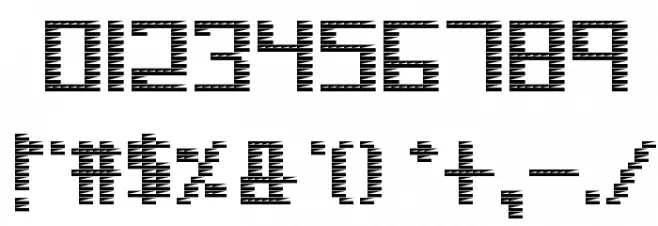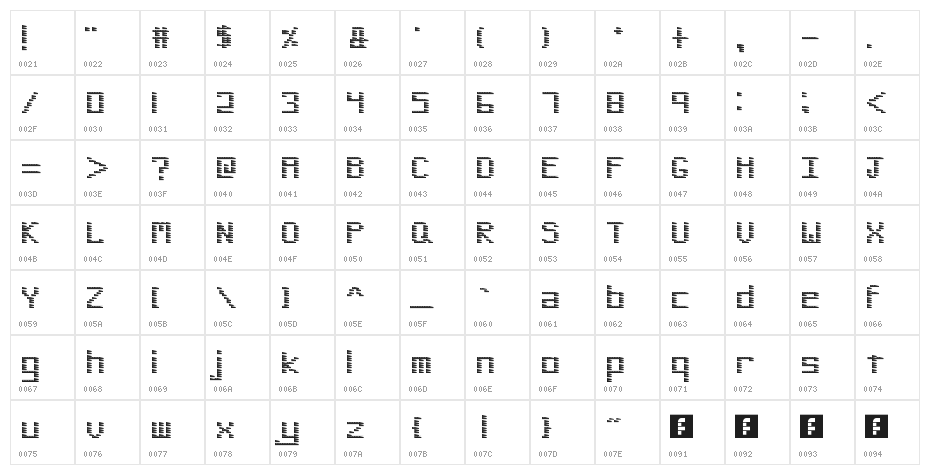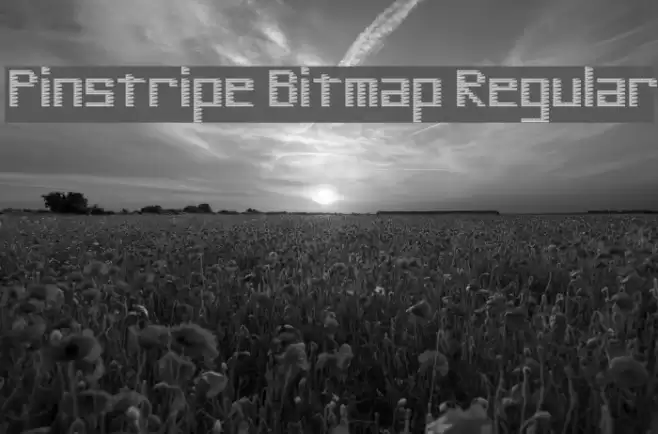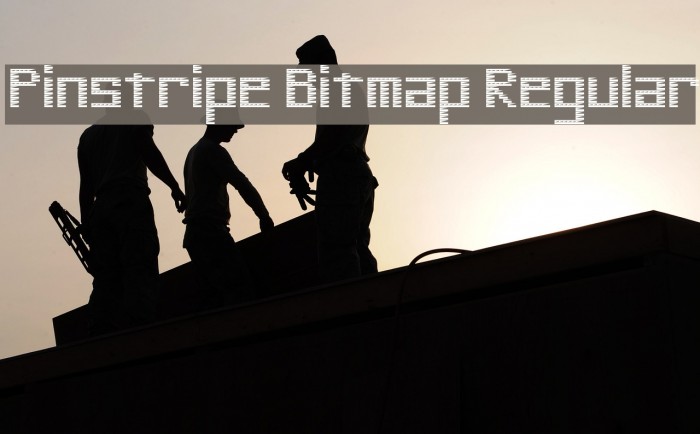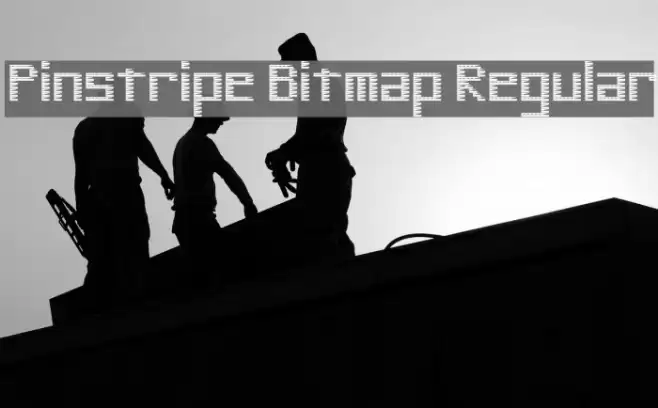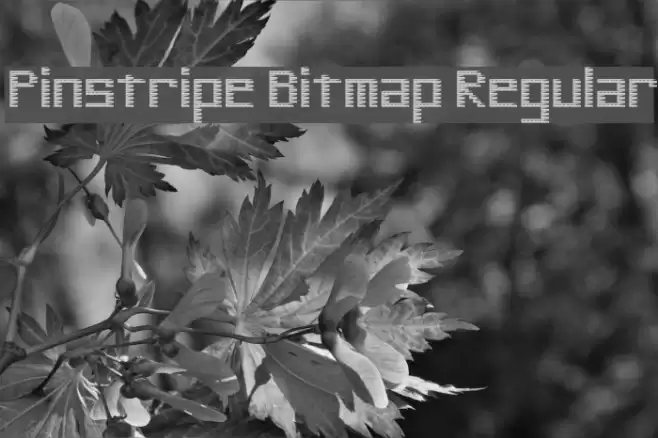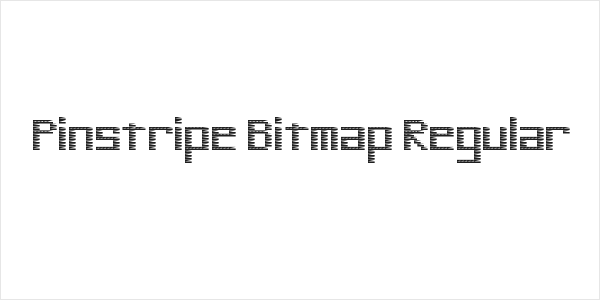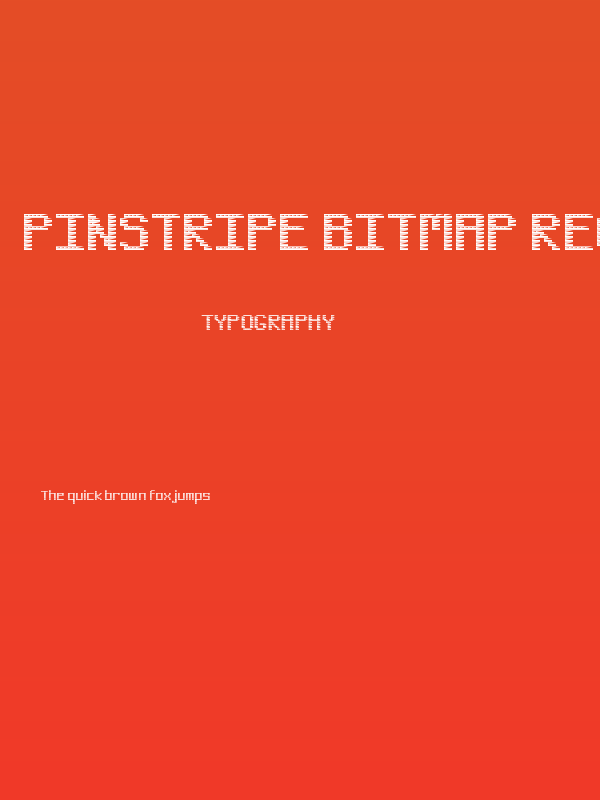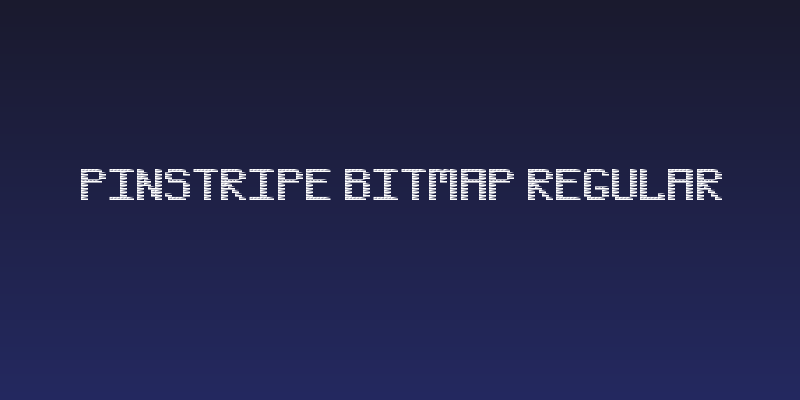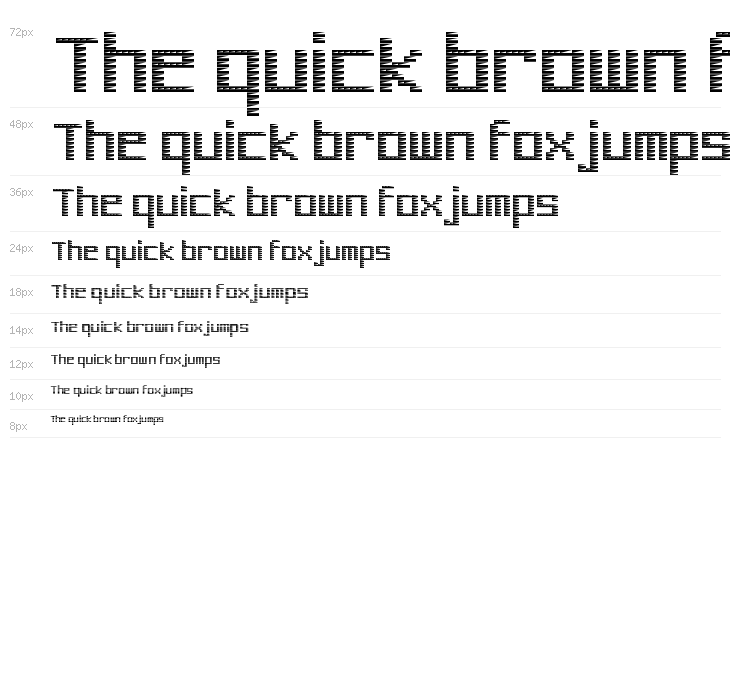
Pinstripe Bitmap Regular Font
Pinstripe Bitmap Regular Description
This font features a unique pinstripe pattern, giving it a distinct, textured appearance. The characters are constructed with horizontal lines, creating a bitmap-like effect that is both modern and retro. The uppercase and lowercase letters maintain a consistent style, with clean, geometric shapes. The numerals and special characters follow the same design principles, ensuring uniformity across the font. This design is eye-catching and suitable for digital displays or creative projects that require a bold statement.
| Use Case | Logos, Headlines, Digital displays |
| Proposed Projects | Ideal for digital art, retro-themed designs, video game graphics, and creative branding projects. |